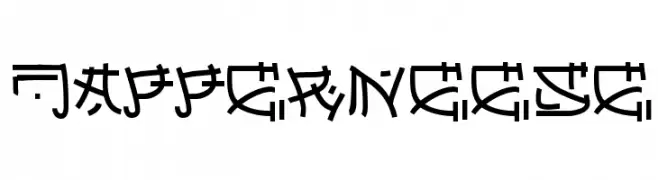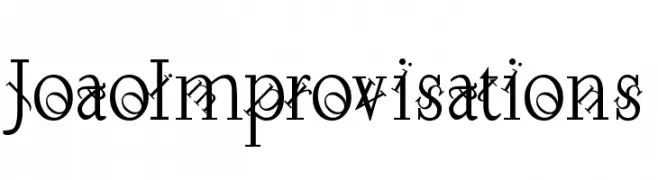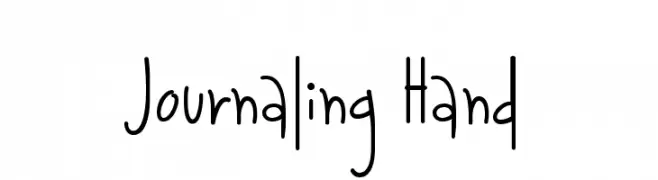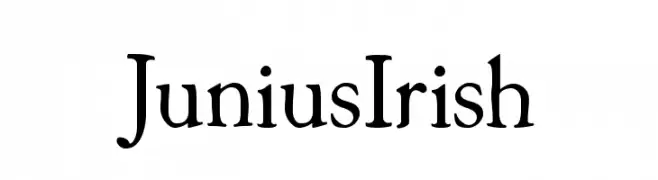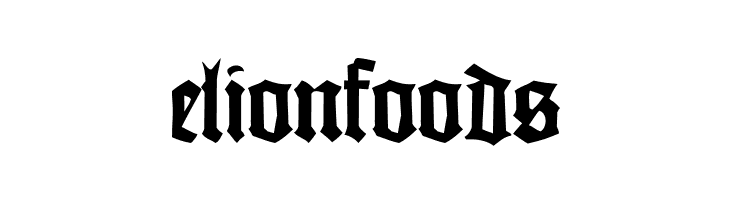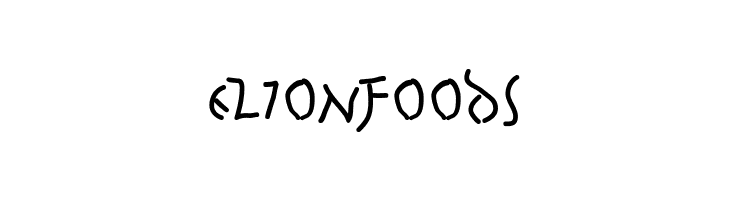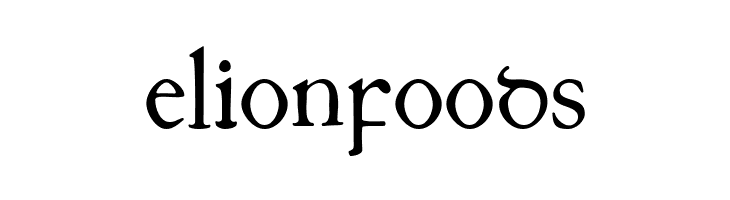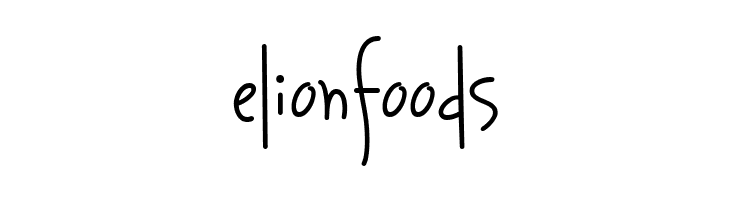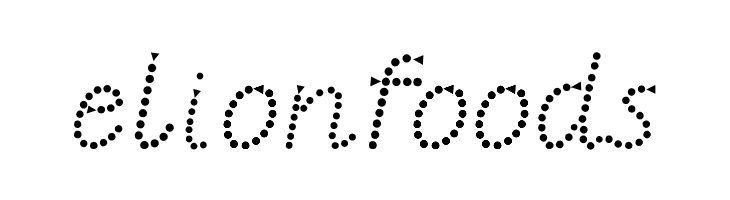
• Japperneese
A bold, geometric font with a futuristic and tribal aesthetic.
• Jardotty
A playful dotted font perfect for creative and informal designs.
• Jeernervaniaan Sribnaki Normal
A geometric and artistic font with sharp, angular letterforms.
• JoaoCond-Light
A modern, elegant serif font with a slightly condensed style.
• JoaoImprovisations
An artistic and complex font with overlapping lines and decorative elements.
• JoeCaxton
A classic blackletter font with ornate, angular letterforms.
• Journaling Hand
A casual, handwritten font with smooth, flowing lines and a playful touch.
• JuliusCTwo
A whimsical, hand-drawn font with an artistic and playful style.
• JuniusIrish
A unique serif font with bold strokes and elegant curves, blending traditional and modern styles.
• JUstice Mono
A monospaced slab serif font with a mechanical and robust design.